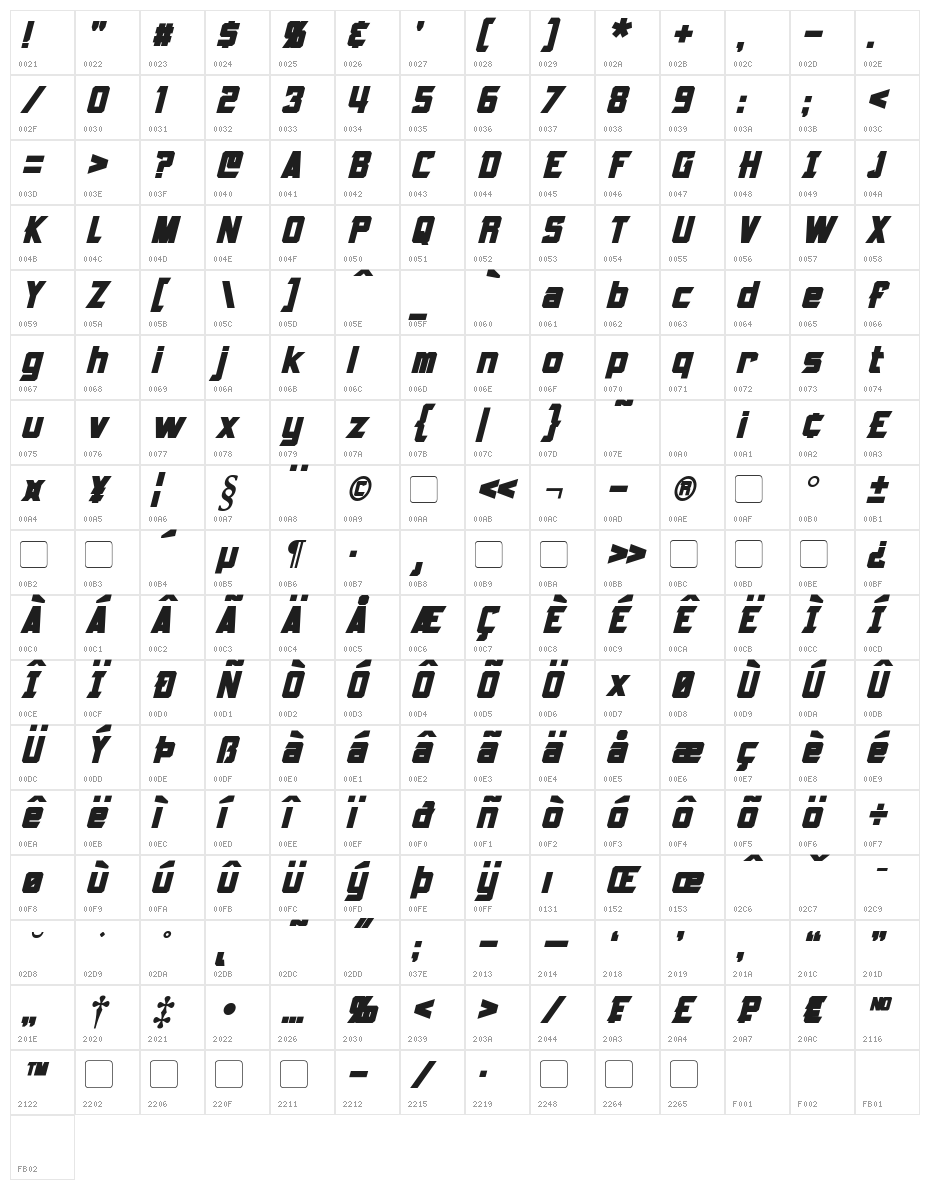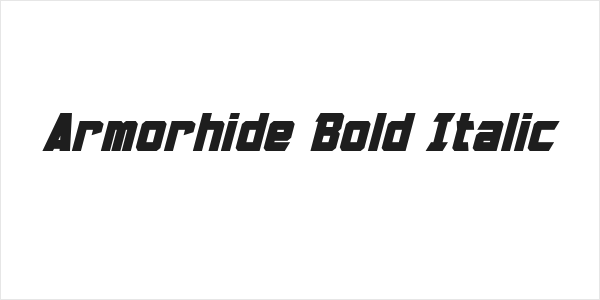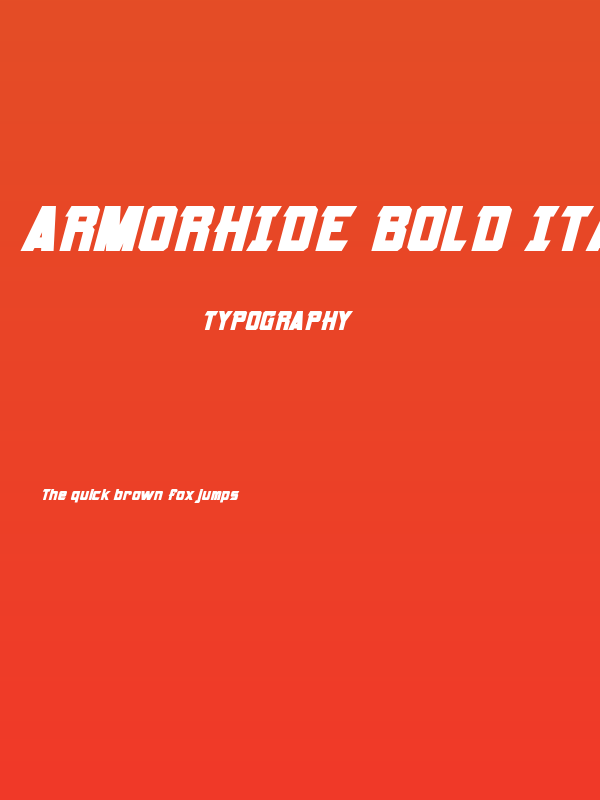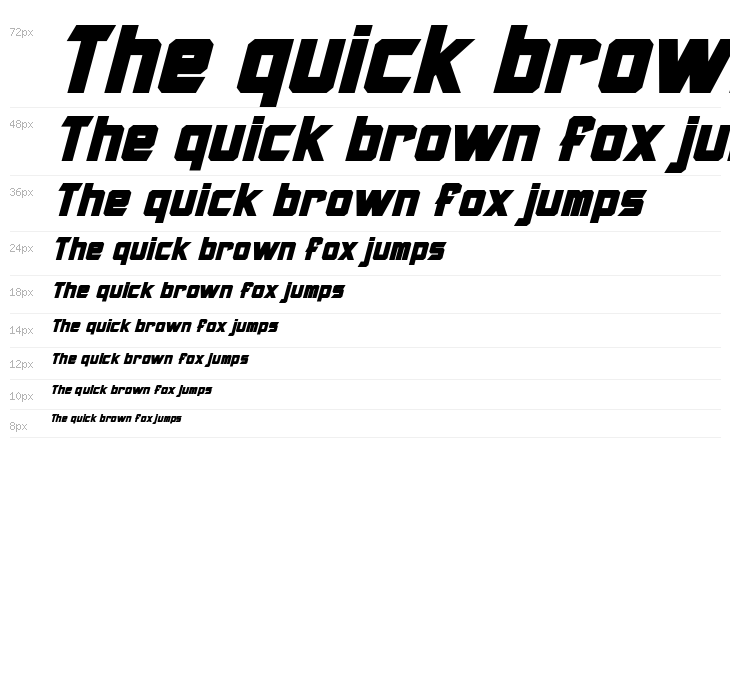
Armorhide Bold Italic Font
Armorhide Bold Italic Description
This font exhibits a bold and italicized style with a strong, angular design. The characters are sharply defined, featuring a futuristic and dynamic appearance. The uppercase and lowercase letters maintain a consistent slant, enhancing the italic effect. The numbers and special characters follow the same bold and angular theme, providing a cohesive look across all glyphs. The font's thick strokes and sharp edges convey a sense of strength and modernity, making it suitable for impactful and attention-grabbing designs.
| Proposed Projects | Ideal for branding, sports team logos, video game titles, and action-themed posters. |